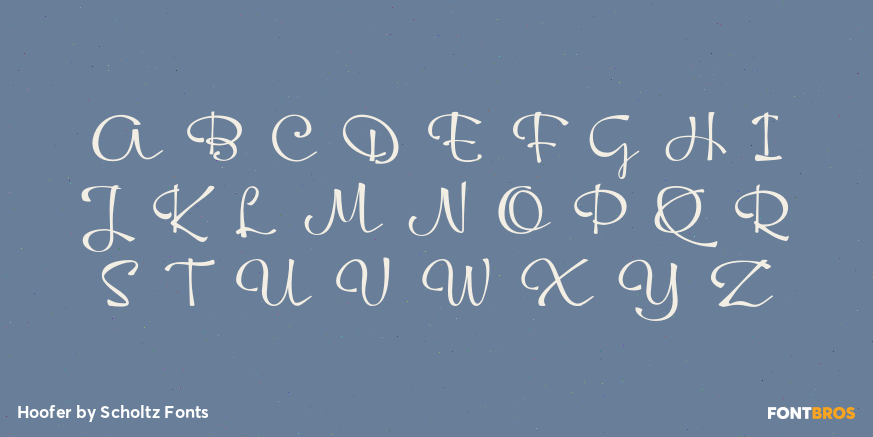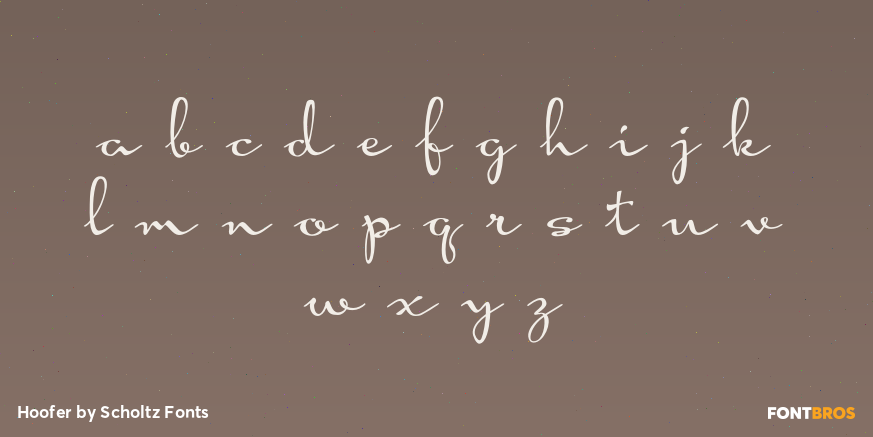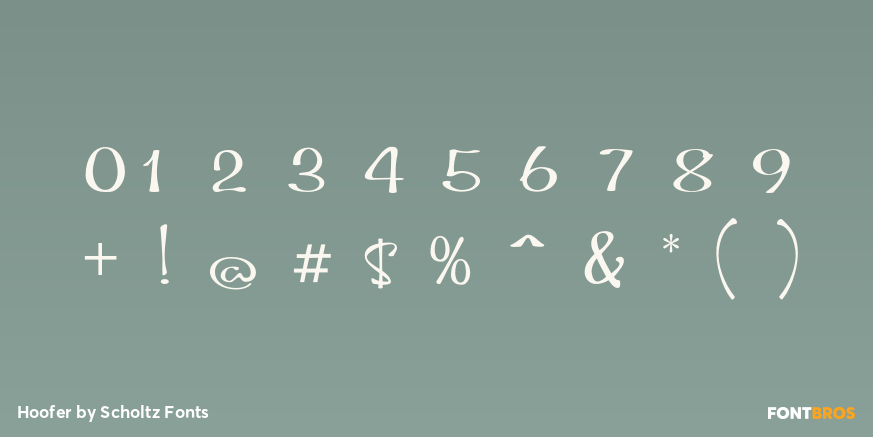
Hoofer
Font Family by Scholtz Fonts
Light and flexible, slightly retro, casual and readable, Hoofer combines 28 brush script, mono line script and sans-serif styles with ornaments into one Mega-Family. The different styles of the Hoofer Mega-family have been chosen to work together and to harmonize in a pleasing way.
The Hoofer Mega-Family of fonts can be divided into three sub-families:
Hoofer BRUSH subfamily: An eclectic group of five fonts. These are mainly joined scripts. Hoofer LINE subfamily: Seven mono-line scripts with joined letters in a number of weights, widths and styles. Hoofer SANS subfamily: Sixteen casual, Sans-Serif fonts. They are very readable and in a variety of weights & styles
The mood of the Hoofer mega-family is light and flexible, slightly retro, casual and readable. It combines script and many sans-serif styles with ornaments into one Mega-Family. The different styles of the Hoofer Mega-family have been chosen to work together and to harmonize in a pleasing way.
OpenType features that Hoofer makes use of are: Swashes (Word-Begin and Word-End Features), Alternate Numerals, and True Small Caps.
Hoofer has all the features usually included in a fully professional font. Language support includes all European character sets, Greek symbols and all punctuation. Opentype features include automatic replacement of some characters and discretionary replacement of stylistic alternatives.